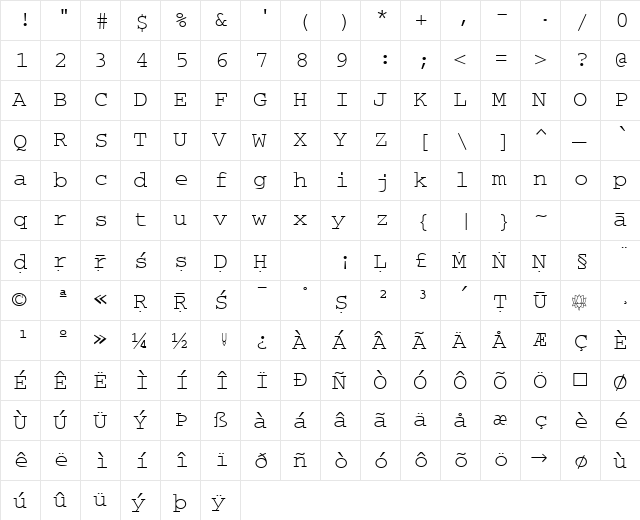
Sanskrit-Courier Regular
Design Context for Sanskrit-Courier Typeface
Sanskrit-Courier uses fixed-width spacing throughout, giving it the structured, systematic character associated with coding environments and technical documentation.
Well-suited to data-driven dashboards, coding tutorials, and any design that wants to reference the world of programming.
Pro Tip: Use Sanskrit-Courier with slightly increased line-height for extended reading — fixed-width spacing can feel dense in longer passages without extra breathing room.